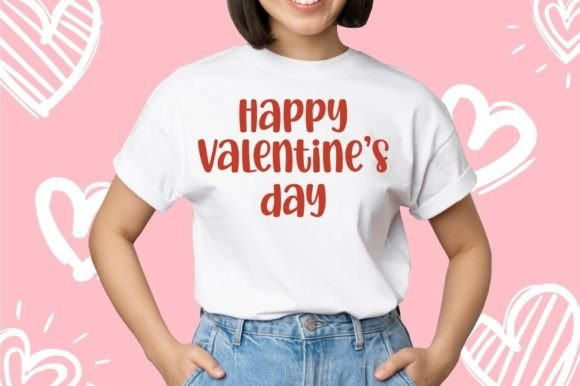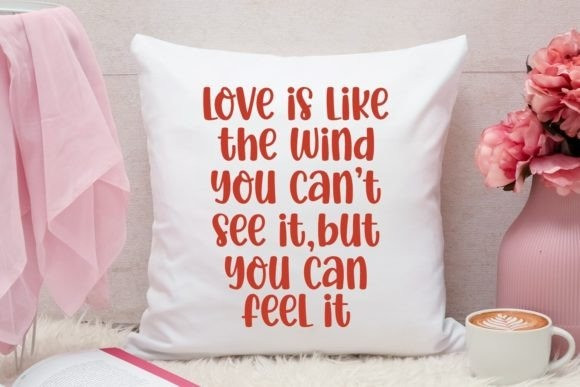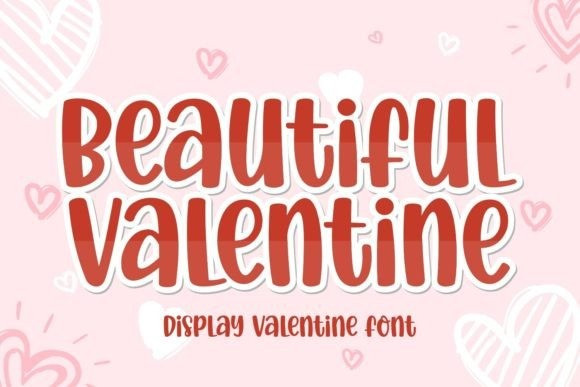
Beautiful Valentine Font
Beautiful Valentine Font is a playful handwritten font that adds a touch of fun and warmth to your projects. With its whimsical style, it’s perfect for creating a cheerful atmosphere for Valentine’s Day cards, posters, or any design that needs a bit of love. Embrace the joy of crafting with Beautiful Valentine, where every stroke carries a sense of happiness and creativity. Let your projects shine with this delightful and easygoing font.